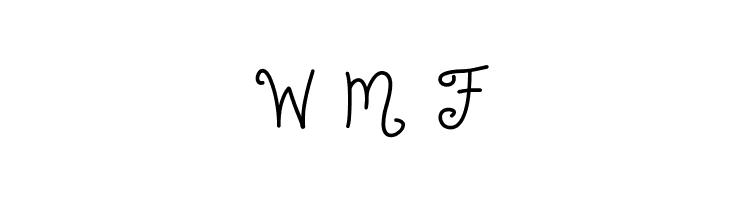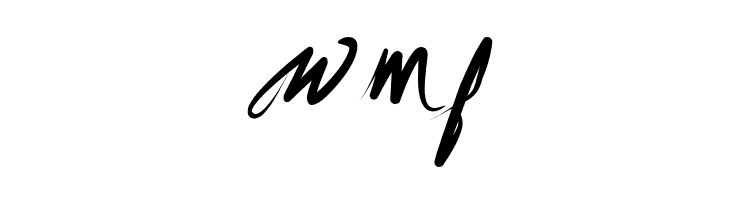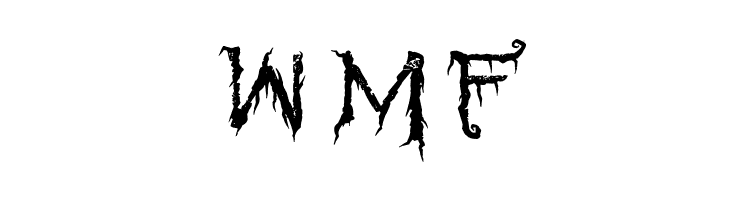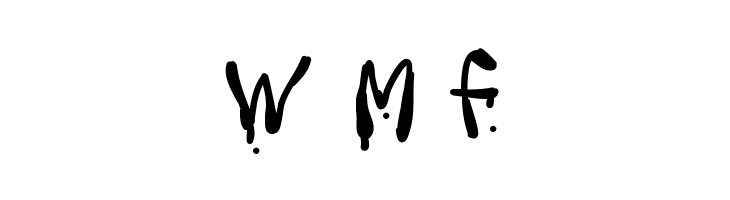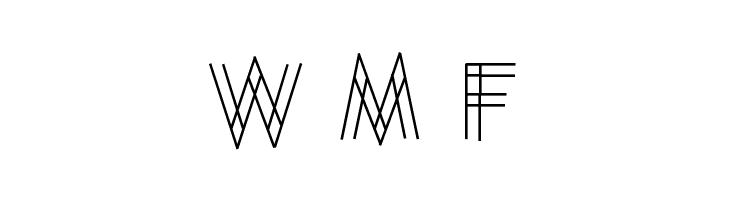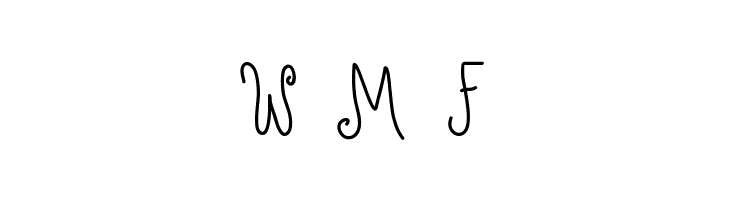
A playful, handwritten font with curly, looping strokes and a whimsical style.
An expressive and dynamic script font with fluid, sweeping strokes.
A dynamic and expressive script font with elegant, sweeping curves.
A gothic, decorative font with dripping, jagged edges and thorn-like extensions.
A decorative font with a dripping, organic style, perfect for bold, eye-catching designs.
A bold, artistic font with a dripping paint effect, ideal for creative projects.
A geometric, blueprint-inspired font with overlapping linear elements.
A whimsical, hand-drawn font with curly, looping strokes and a playful style.